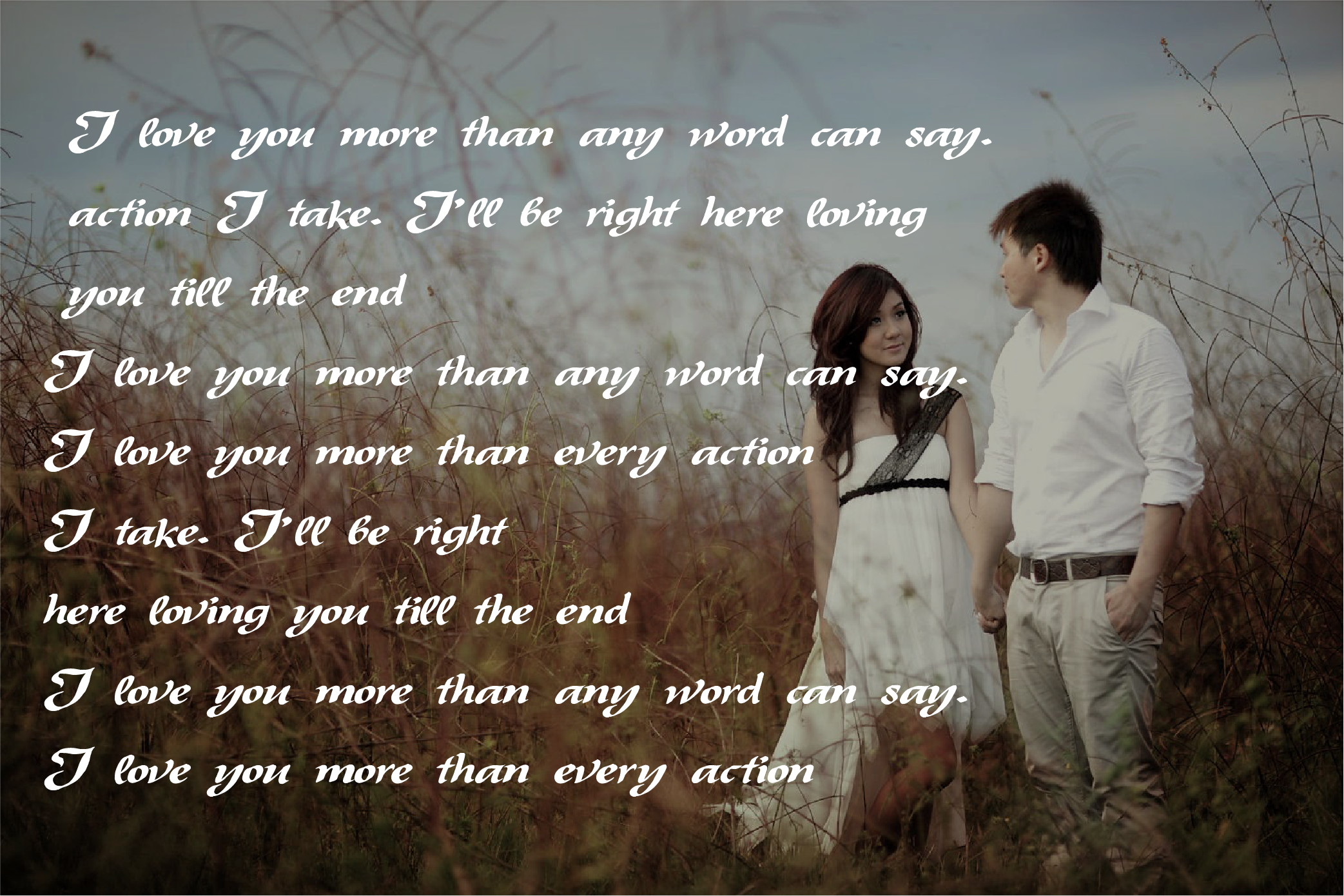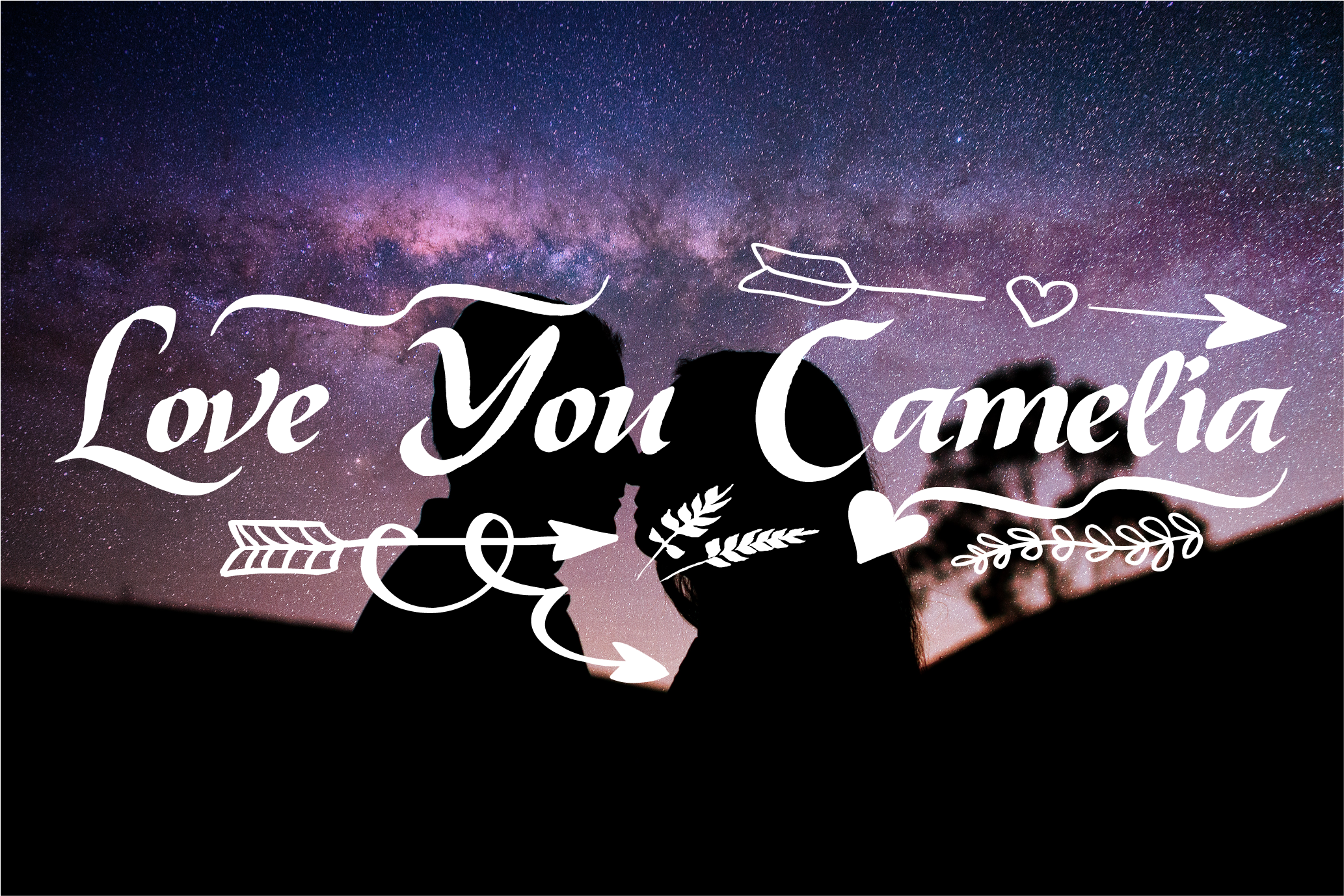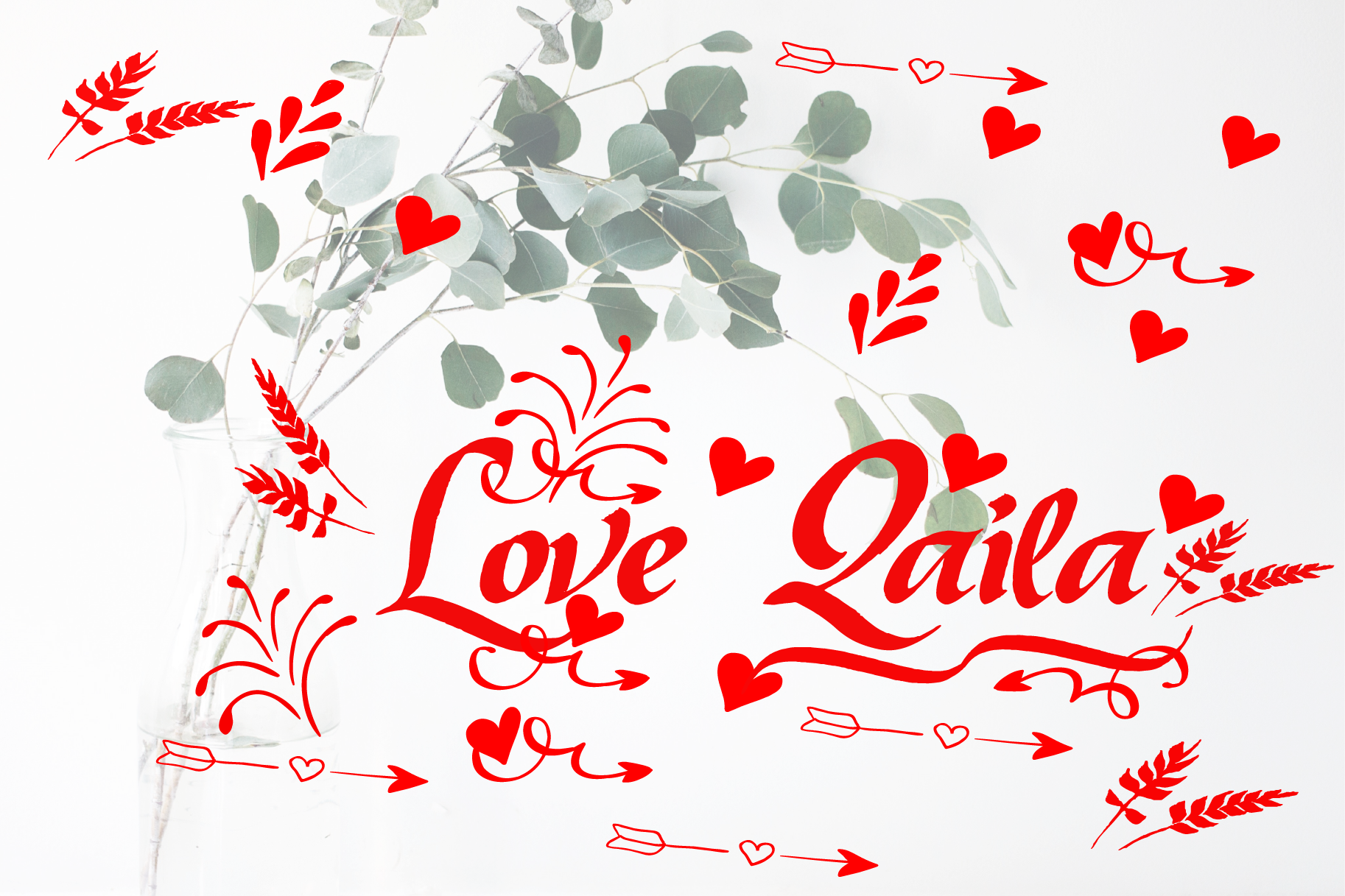
HomeScript FontsCamelia Font Script Fonts Camelia Font FacebookXPinterestWhatsApp Camelia Font Poster 2 Camelia Font Poster 3 Camelia Font Poster 4 Camelia Font Poster 5 Camelia Font Poster 6 About Camelia Font Camelia is a decorative handwritten font. It’s dynamic and features easy to read letters. DOWNLOAD ON CREATIVE FABRICAThis font is sold and delivered by Creative Fabrica. Font Canyon may earn a commission if you buy through this link. People also explored Signature Font Wonderful Font Lovely Easter Font Miguel Font Elyna Siloka Font Roan Font Hello Valentine Font Good Boy Font 278 0 TagsCamelia Font Previous articleLong Stone FontNext articleAlanta Font LEAVE A REPLY Cancel reply Comment: Please enter your comment! Name:* Please enter your name here Email:* You have entered an incorrect email address! Please enter your email address here Website: Save my name, email, and website in this browser for the next time I comment. Personal Use Free Foo Personal Use Free Read more about this font Uchiyama Personal Use Free Read more about this font Manbow Personal Use Free Read more about this font Ayam Bakar Personal Use Free Read more about this font BLOG Best Fonts for T-Shirt Design – Top 2025 Picks In 2025, t-shirt design has become more than just fashion—it's a form of self-expression. Whether you're... Free vs Paid Fonts: Why Investing in Premium Fonts Is Worth It To increase your work productivity, choose the most readable fonts. How to Install and Use Fonts on Windows, macOS, and Web Projects